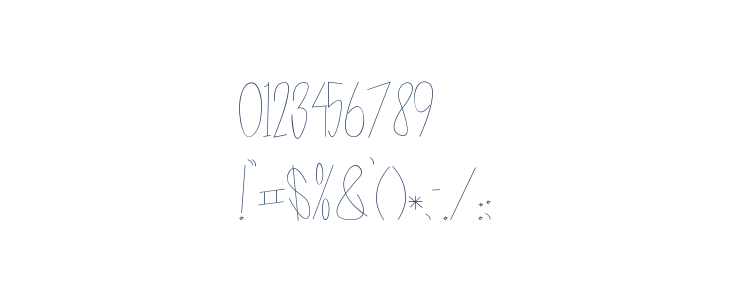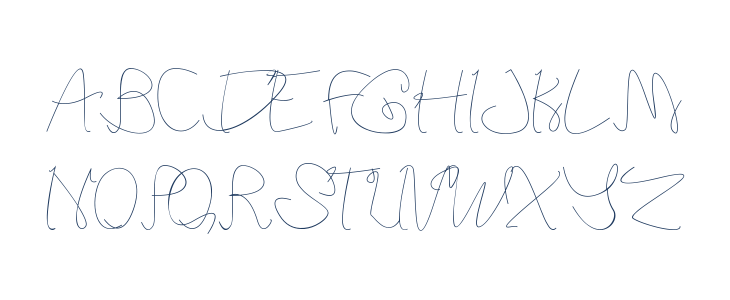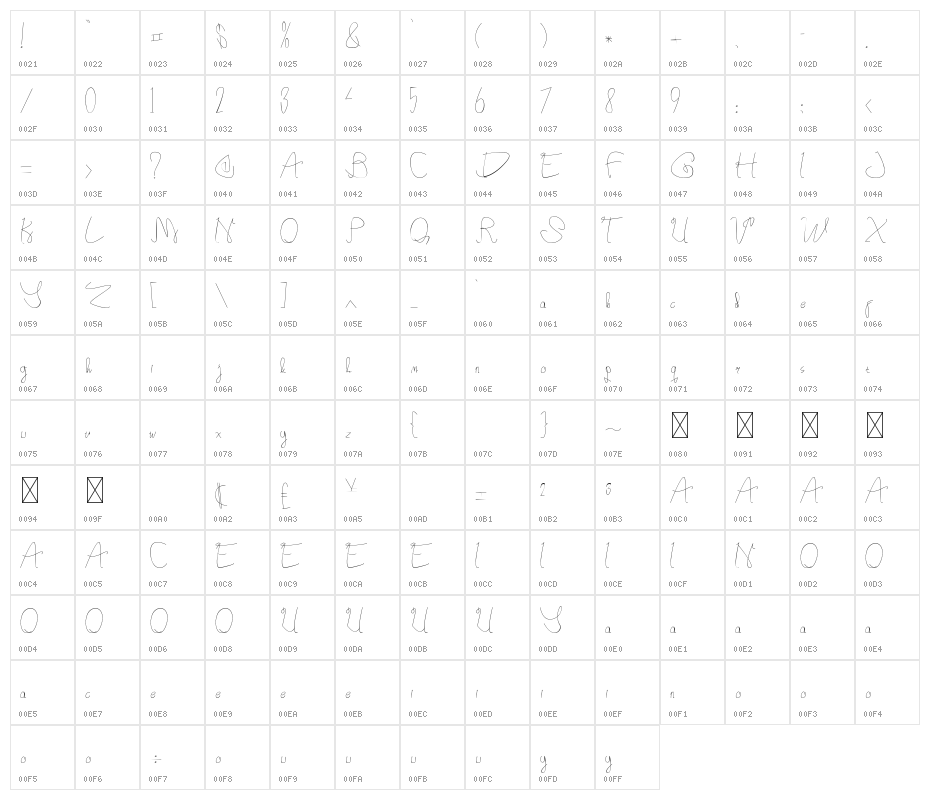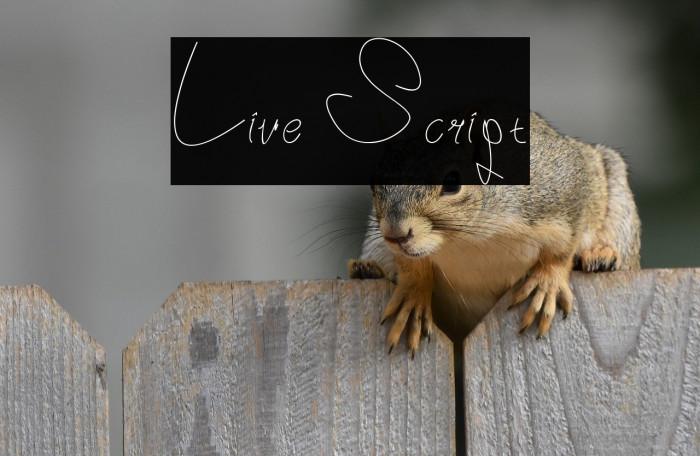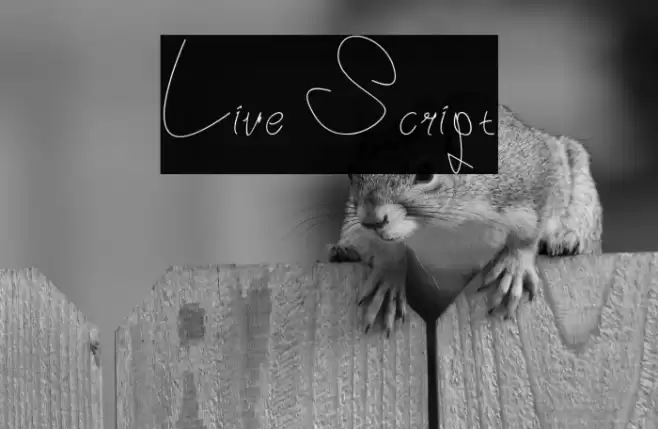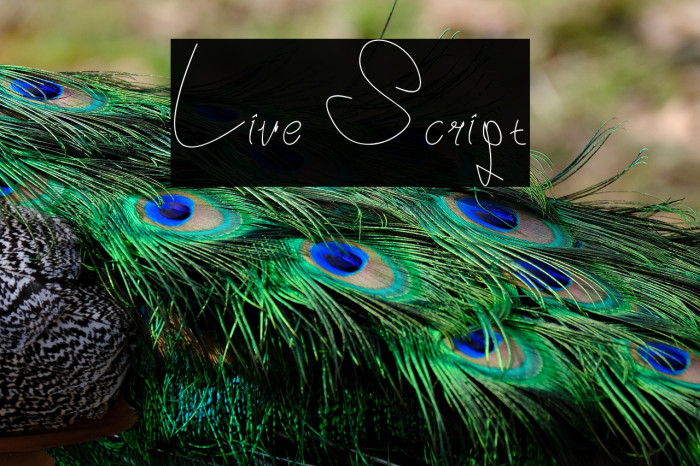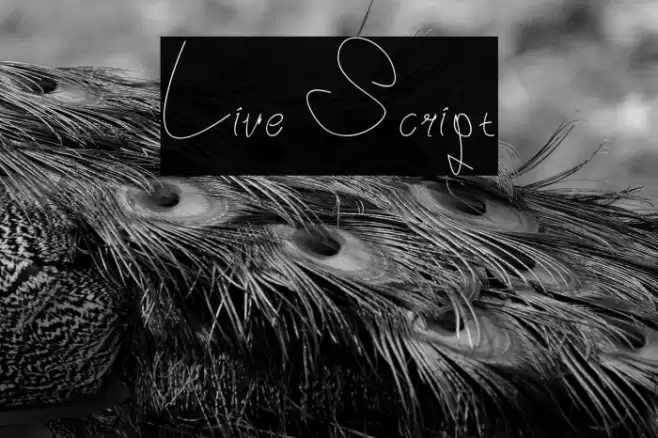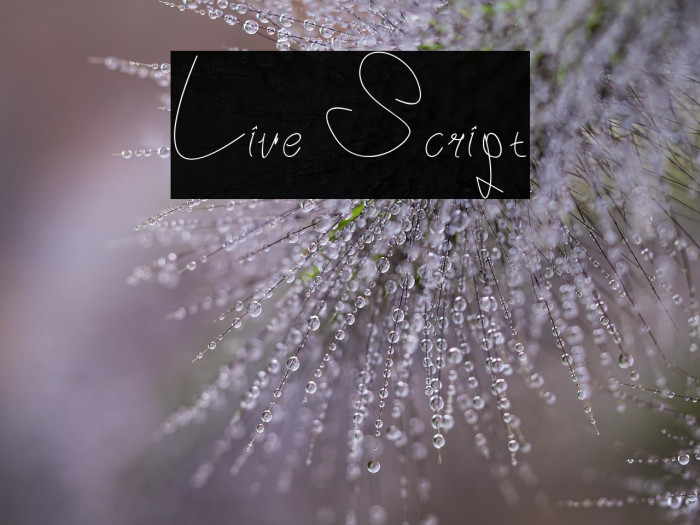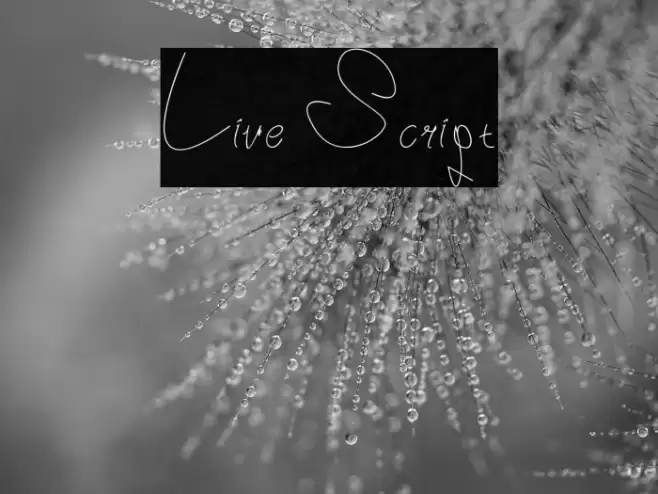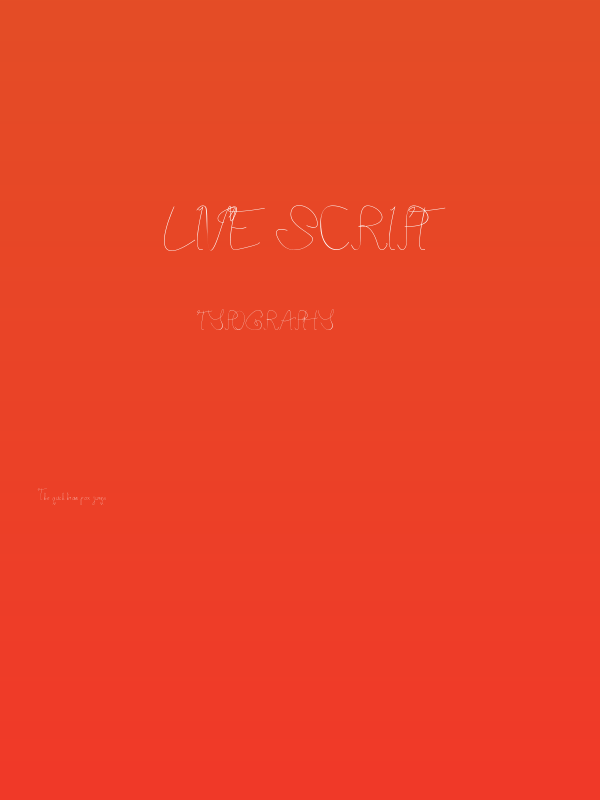
Live Script Font
Live Script Description
A delicate, thin, and highly stylized handwritten font with elongated and looping strokes, giving it an airy and whimsical appearance.
| Overall Style | Whimsical, Artistic, Elegant |
| Use Case | Decorative headings, invitations, personal notes |